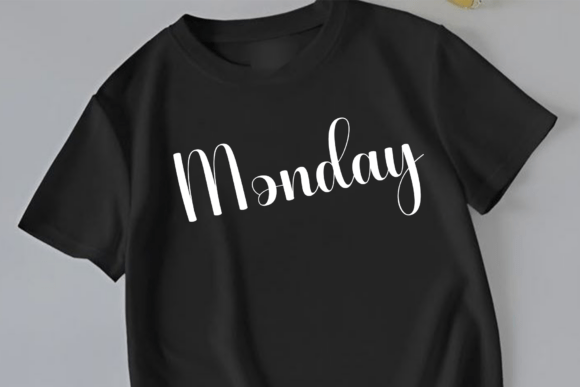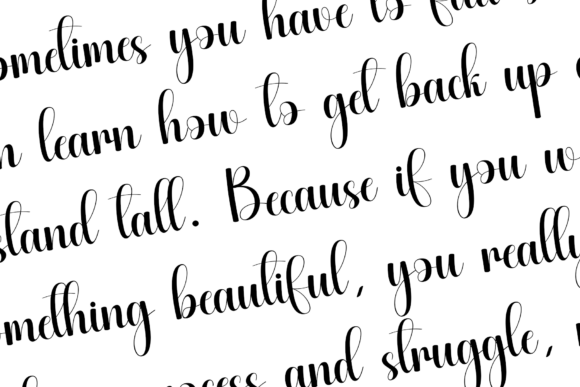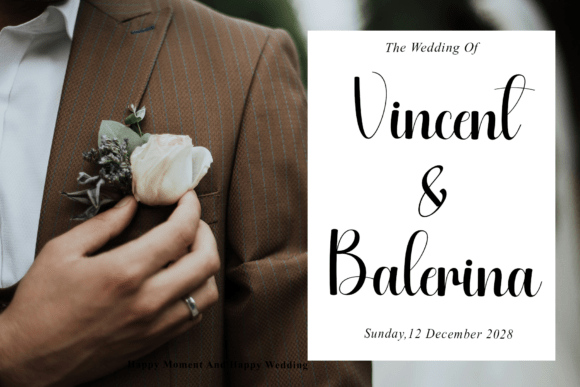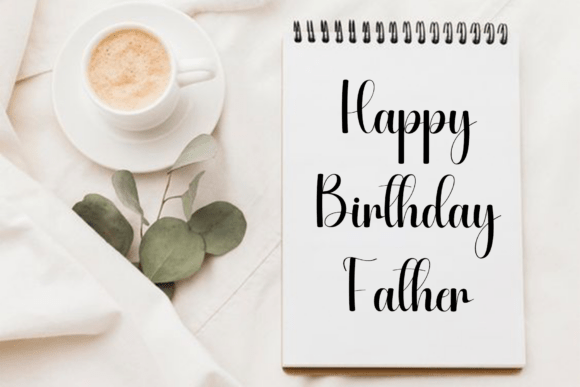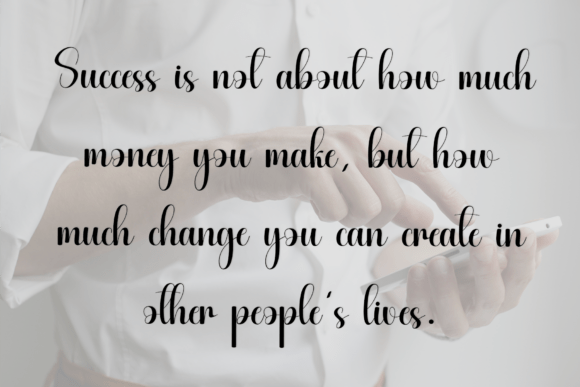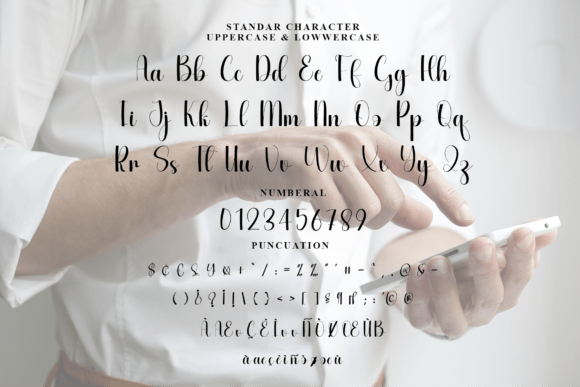
Introducing Calling Font: The Epitome of Modern Elegance
In the world of typography, few fonts manage to convey the essence of luxury and sophistication as effortlessly as Calling Font. This exquisite handwritten script font is a masterclass in modern elegance, bringing a fluid, signature-like motion to the page that is nothing short of captivating. With its delicate balance of tall ascenders and sweeping loops, Calling Font creates a rhythmic and sophisticated visual flow that elevates any text to new heights of refinement.
The Design Philosophy Behind Calling Font
Calling Font is more than just a collection of letters; it’s an expression of style and poise. Its design is rooted in the principles of fluidity and movement, mimicking the natural flow of handwriting. This results in a font that feels both personal and prestigious, making it the perfect choice for applications where making a statement is paramount. Whether it’s luxury branding, signature logos, wedding stationery, or high-end editorial content, Calling Font brings an unmistakable touch of class to every word.
Key Features of Calling Font
- Fluid, Signature-Like Motion: The font’s design captures the natural flow and movement of handwriting, giving it a personal and elegant feel.
- Delicate Balance of Ascenders and Loops: Tall ascenders and graceful, sweeping loops work together to create a rhythmic and sophisticated visual flow.
- Versatility: Suitable for a wide range of applications, from luxury branding and signature logos to wedding stationery and high-end editorial content.
- Modern Elegance: Calling Font embodies modern elegance, making it perfect for designers and crafters looking to add a touch of sophistication to their projects.
Applications of Calling Font
The versatility of Calling Font makes it an invaluable asset for designers and crafters across various industries. Here are some of the key areas where Calling Font truly shines:
- Luxury Branding: Elevate your brand’s visual identity with a font that exudes elegance and sophistication.
- Signature Logos: Create memorable and impactful logos that capture the essence of your brand’s personality.
- Wedding Stationery: Add a touch of romance and luxury to wedding invitations, menus, and other stationery with Calling Font.
- High-End Editorial Content: Bring a level of sophistication and refinement to magazines, editorials, and digital publications.
Why Choose Calling Font?
In a sea of fonts, Calling Font stands out for its unique blend of elegance, versatility, and personality. Here are a few reasons why designers and crafters are gravitating towards this exceptional font:
- Unique Style: Calling Font offers a fresh and distinctive style that sets it apart from more traditional fonts.
- Ease of Use: Despite its sophisticated appearance, Calling Font is remarkably easy to use, making it accessible to designers of all skill levels.
- Emotional Connection: The font’s handwritten nature creates an emotional connection with the reader, making it perfect for applications where personal touch is valued.
Calling Font is a game-changer for designers and crafters seeking to infuse their projects with modern elegance and sophistication. Its fluid, signature-like motion, combined with a delicate balance of ascenders and loops, creates a visual flow that is both rhythmic and refined. Whether you’re working on luxury branding, signature logos, wedding stationery, or high-end editorial content, Calling Font is the perfect choice for those who demand the best. Elevate your designs with a font that is truly in a class of its own.